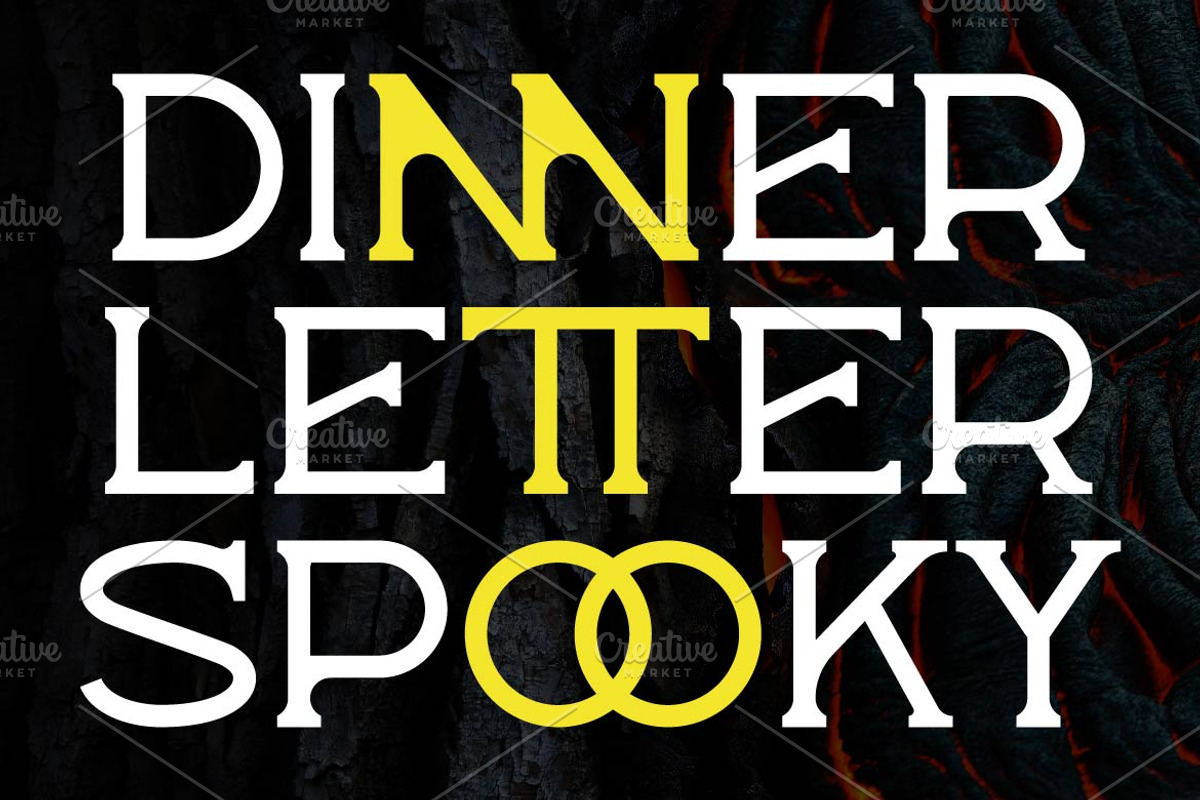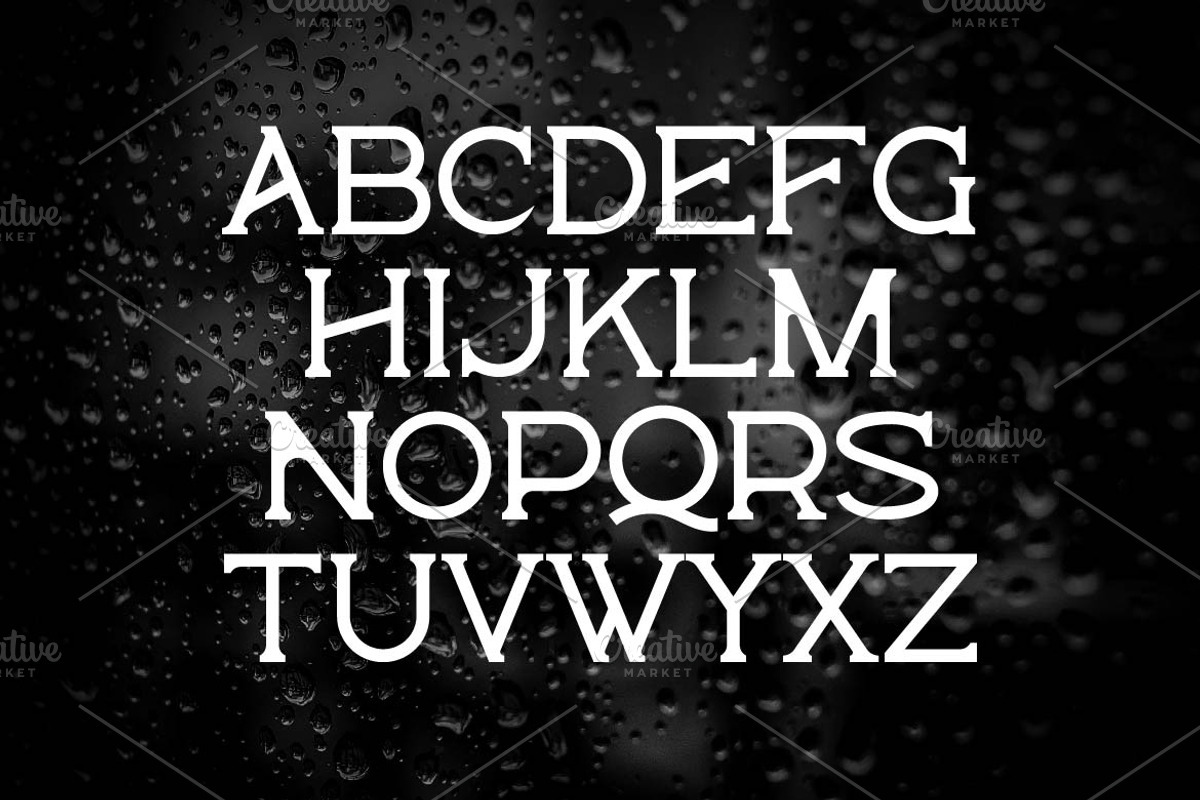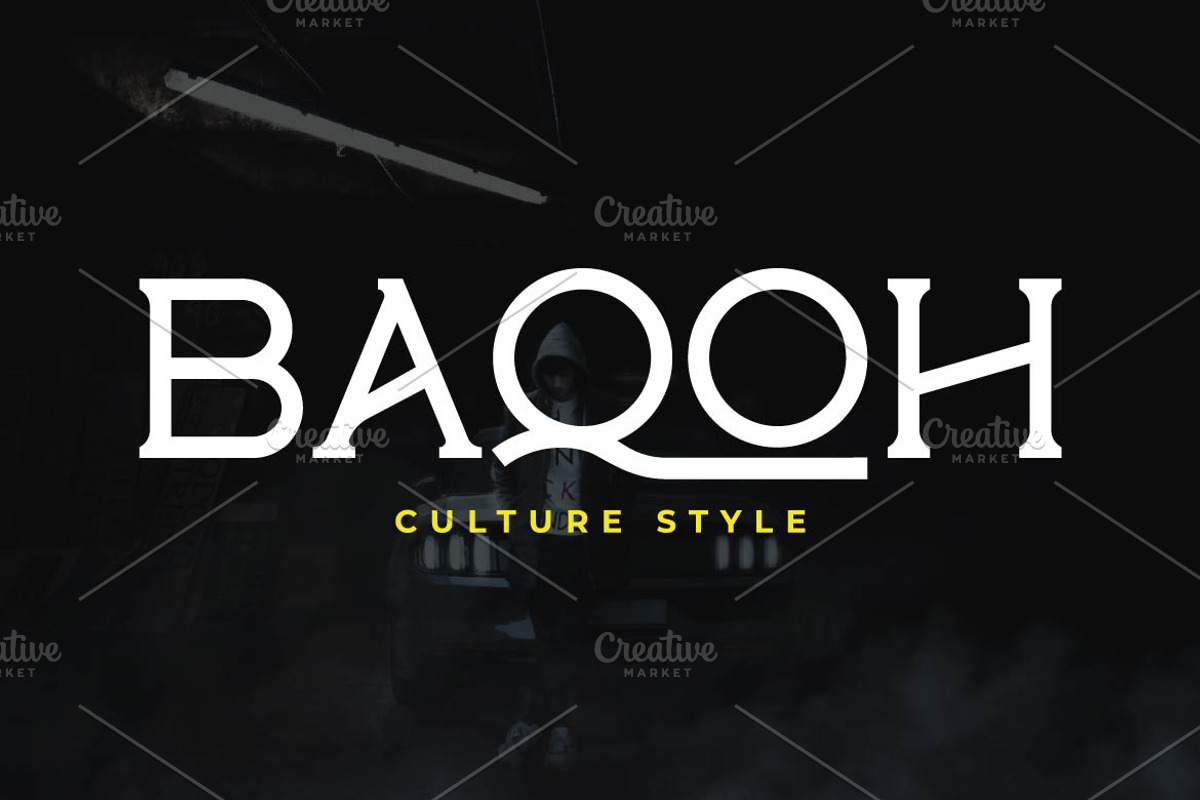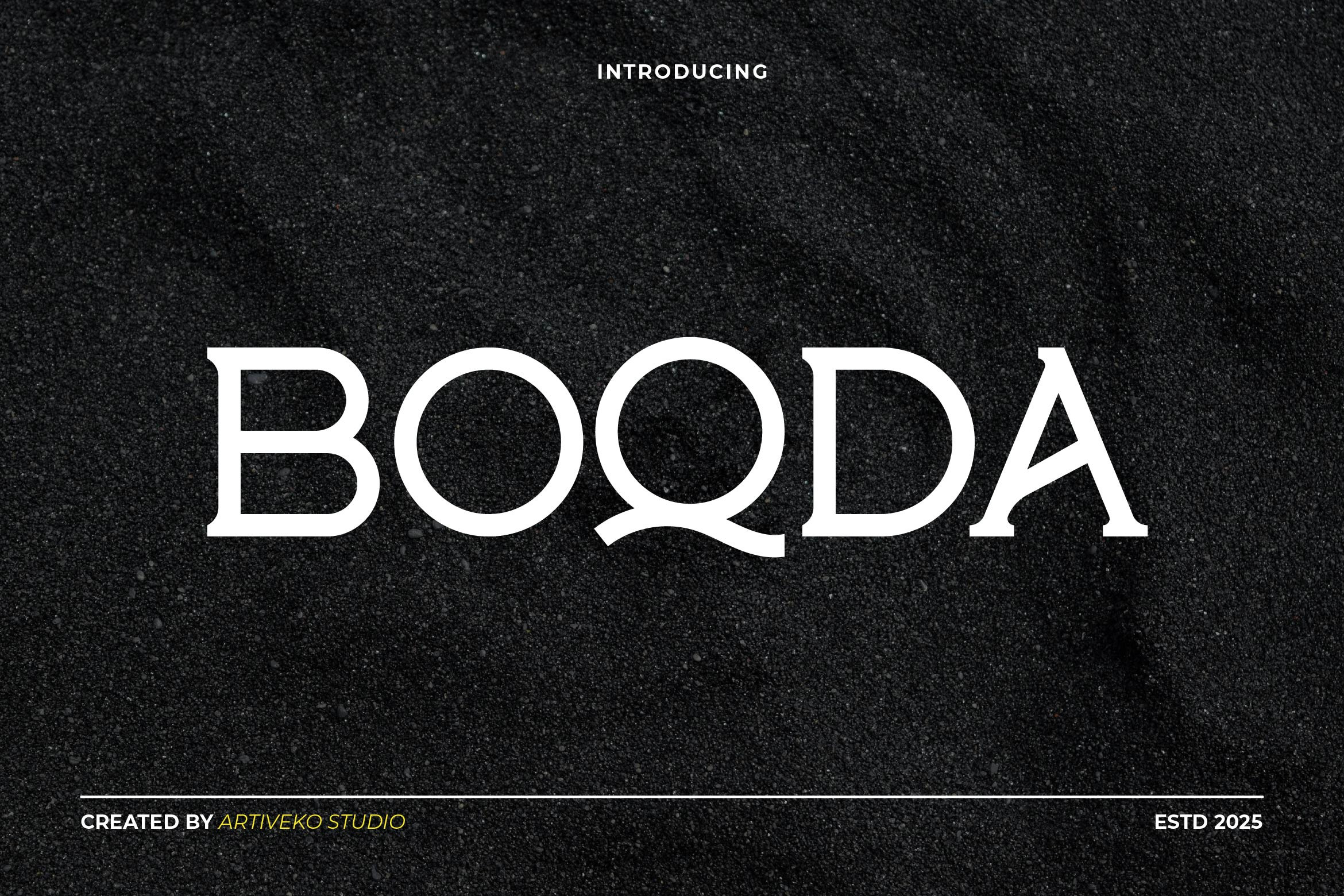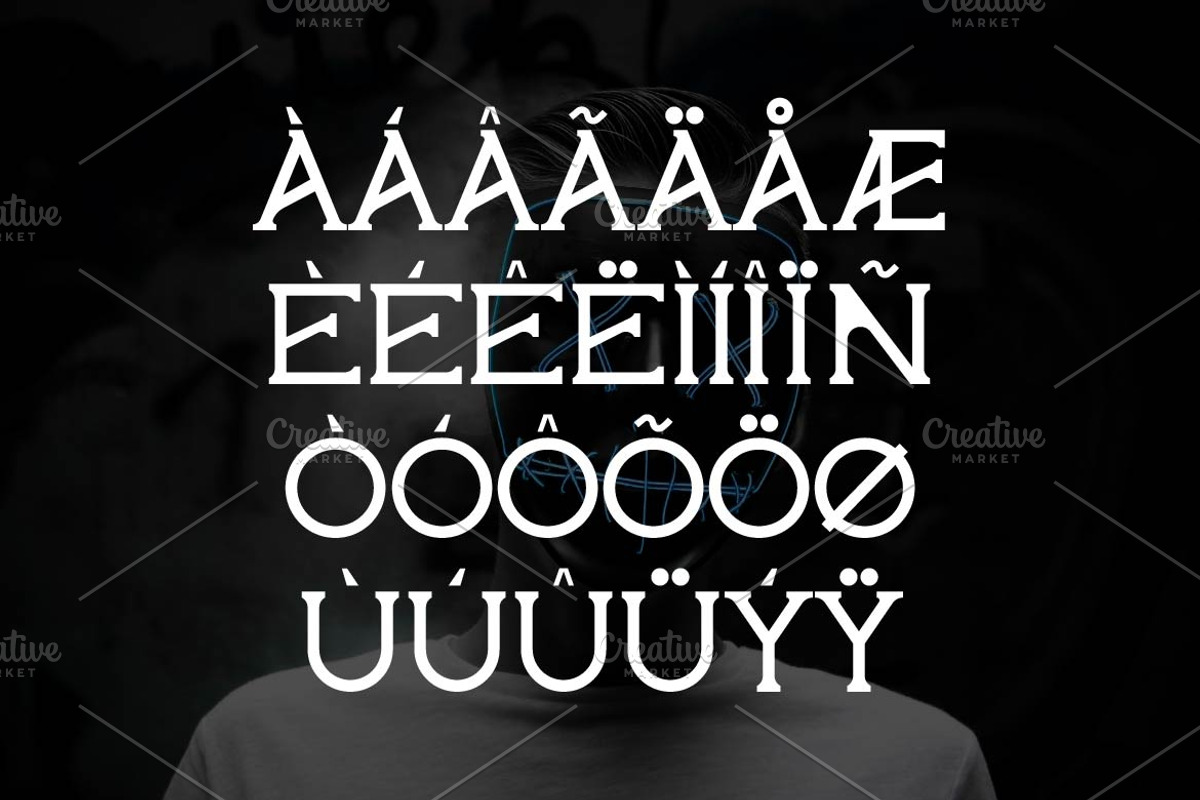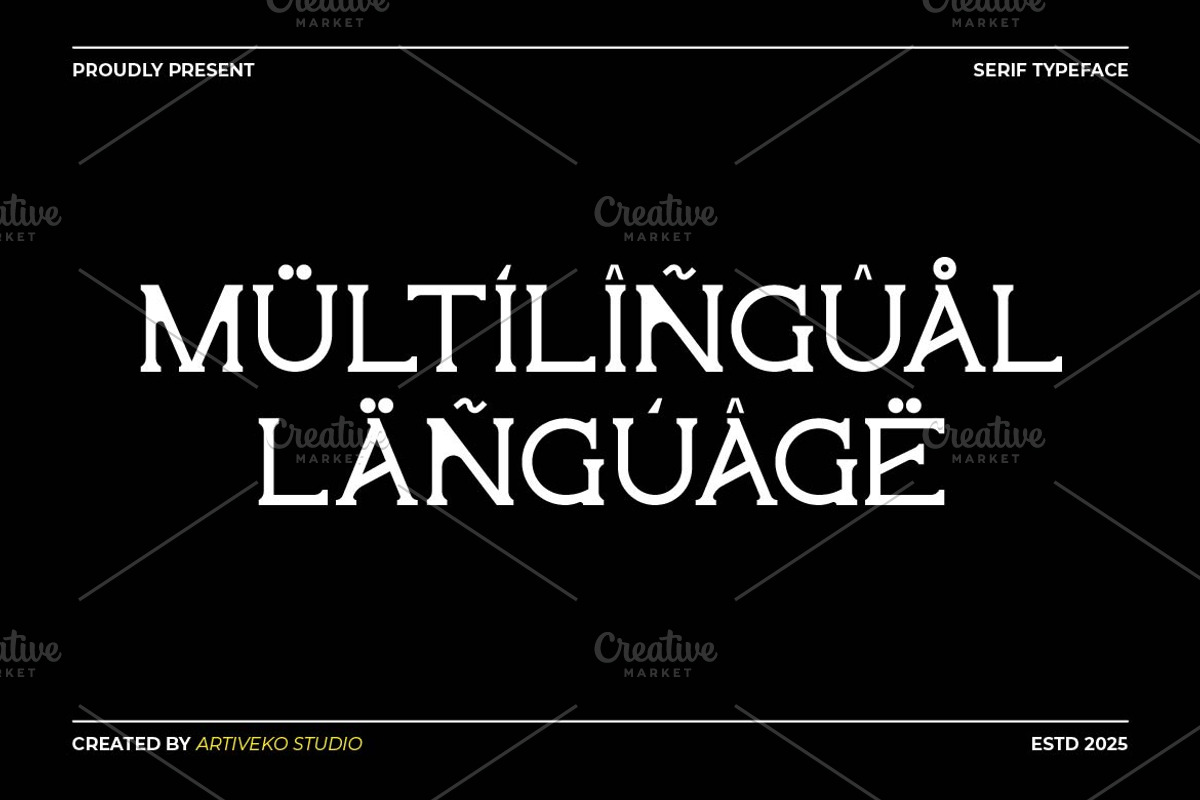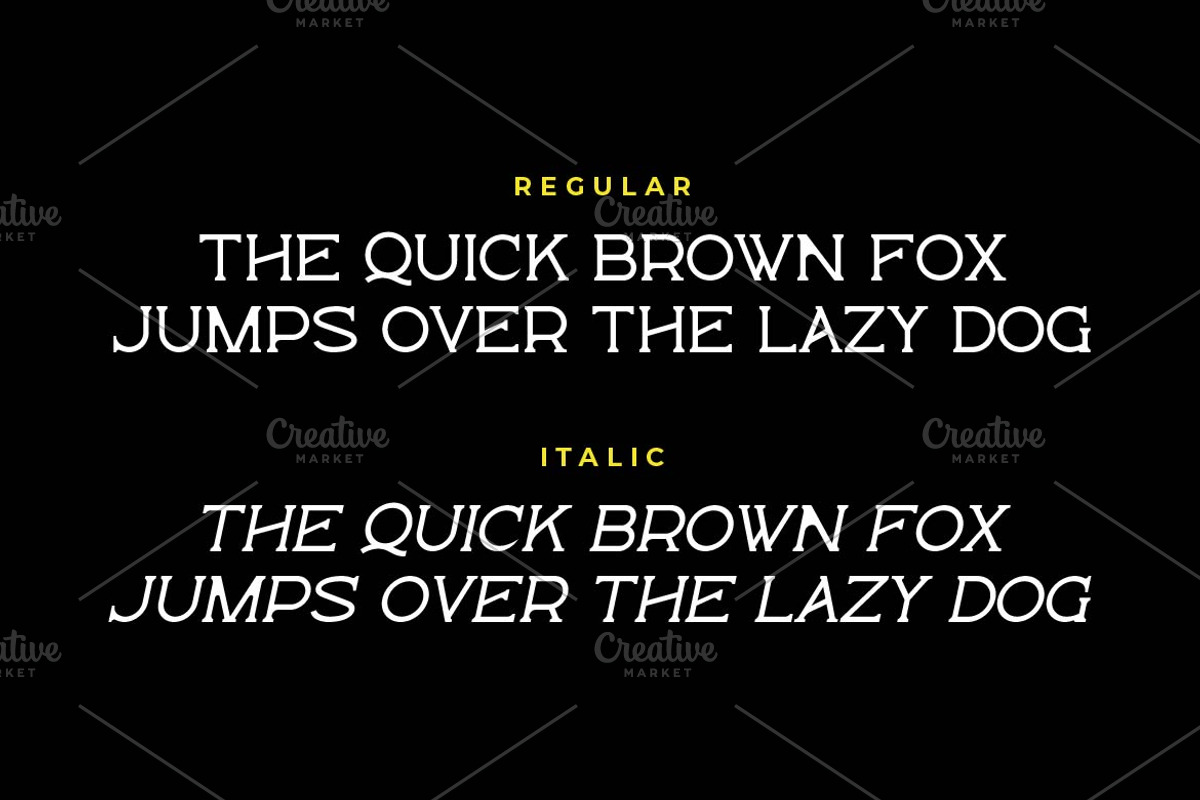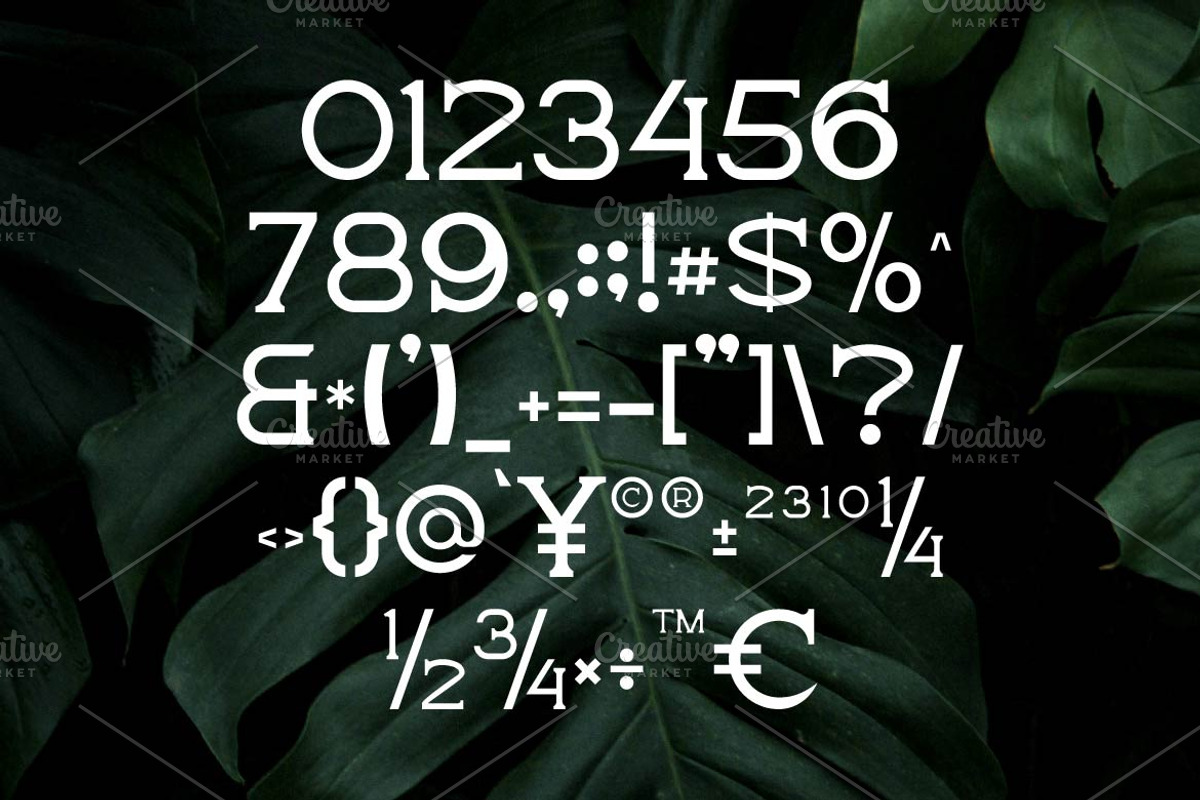
Boqda Elegant Serif Font
Boqda is a modern serif font that exudes elegance and confidence. With sharp serifs, stylish contrast, and contemporary proportions, Boqda is perfect for branding, magazine headlines, packaging, and sophisticated logo designs. Featuring multilingual support, ligatures, and alternates, it brings a refined yet bold presence to any creative project.